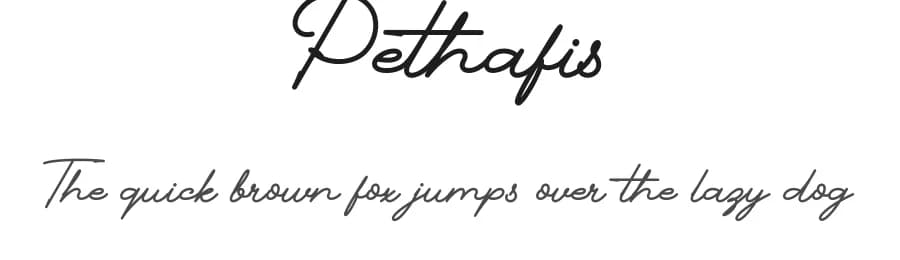
About Pethafis Font
Introducing Pethafis, a bold & festive monoline script font that's suitable for branding, product packaging, social media quotes and graphics, holiday cards and more.
Pethafis Font is a script font that shines as a display or heading face. Pair it with a clean sans-serif or serif font for body text β the contrast creates a clear hierarchy while the two styles stay balanced and easy to read.
Pethafis Font